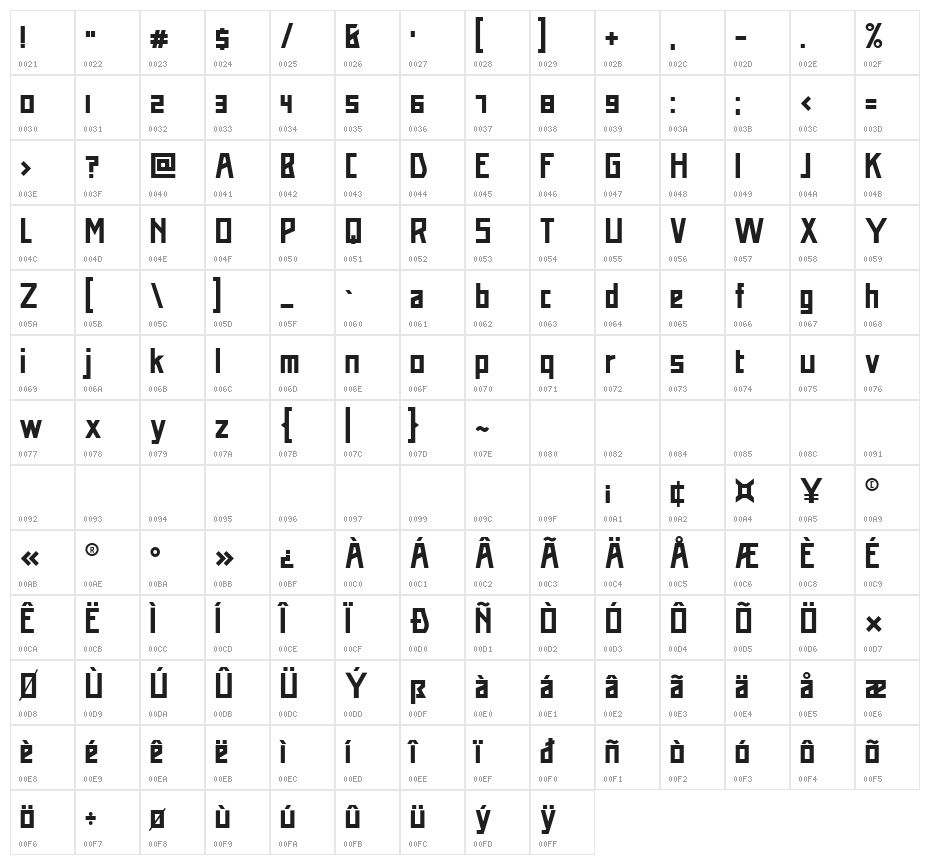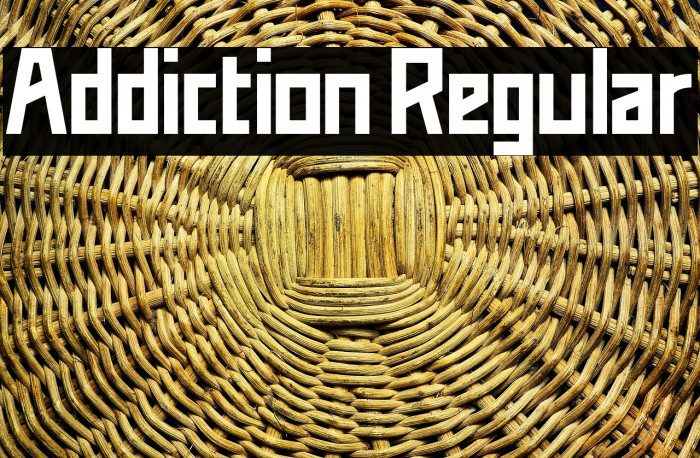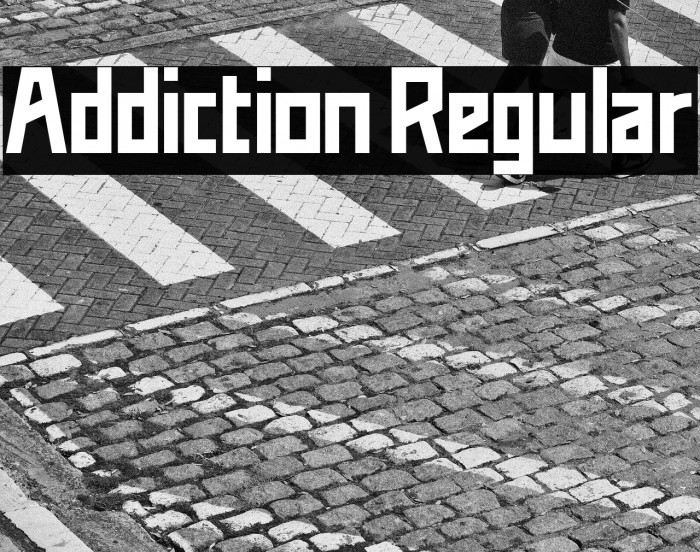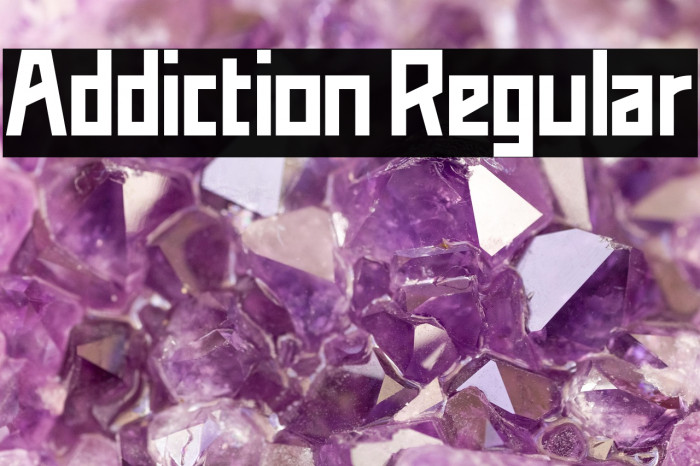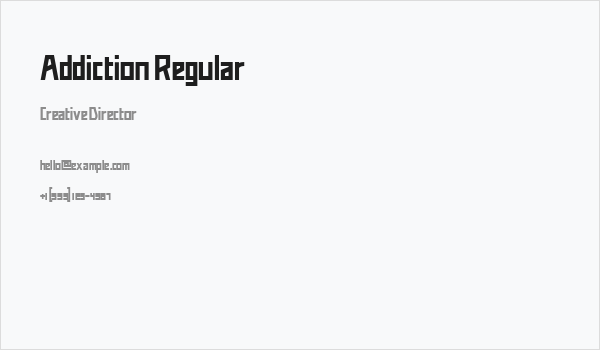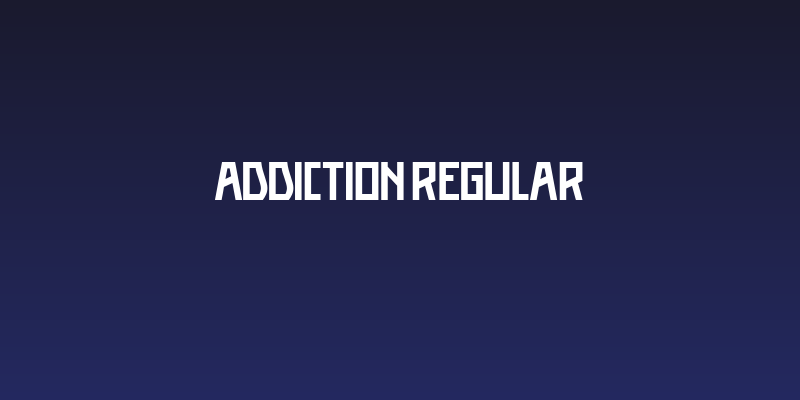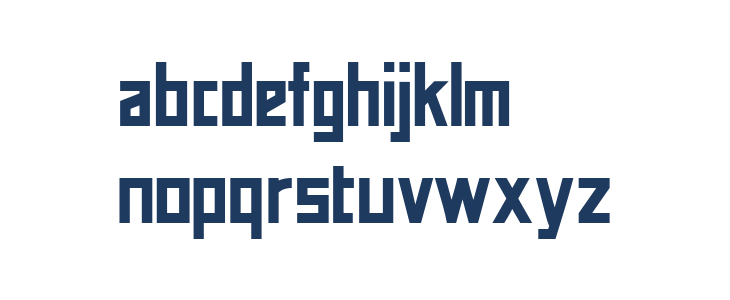
Addiction Regular Font
Addiction Regular Description
This font features a bold, geometric style with a strong presence. The characters are constructed with sharp angles and straight lines, giving it a modern and assertive look. The uppercase letters are particularly striking, with a uniform height and width that create a cohesive appearance. The lowercase letters maintain the same geometric style, ensuring consistency across the typeface. Numbers and special characters are designed to match the boldness and angularity of the alphabet, making them stand out in any design. This font is ideal for projects that require a strong visual impact.
| Proposed Projects | Ideal for headlines, posters, branding, and any design needing a strong visual impact. |